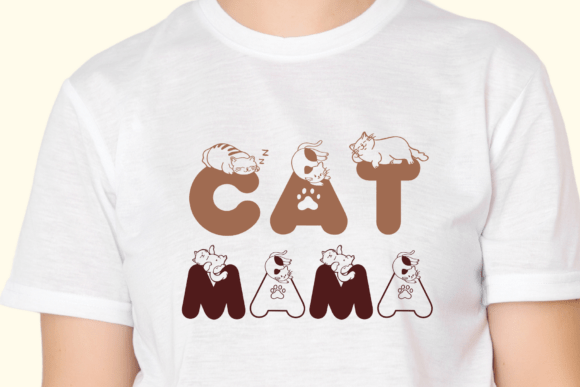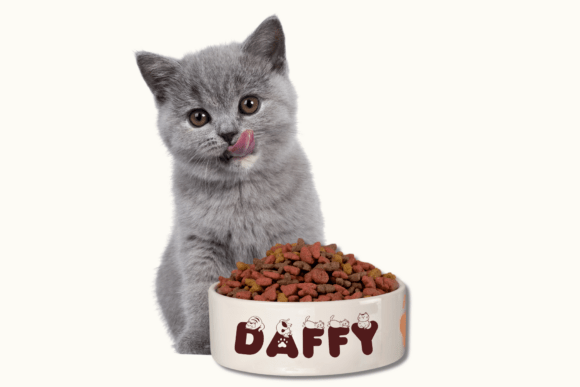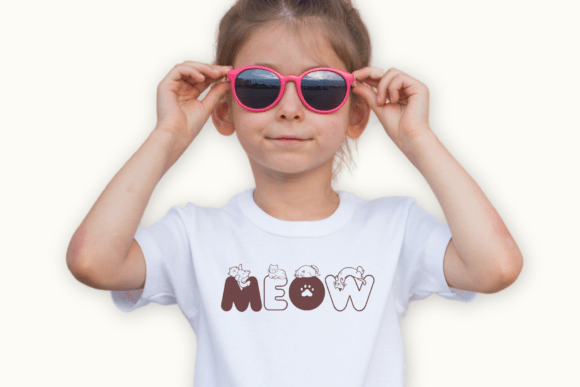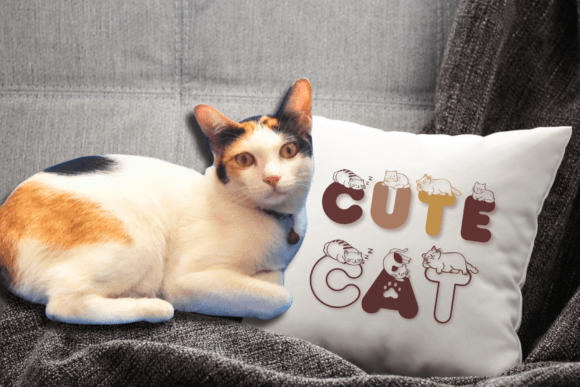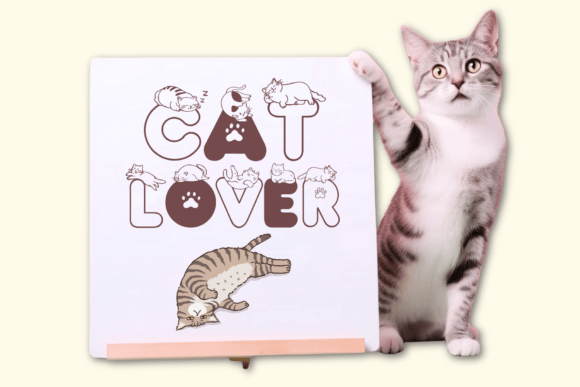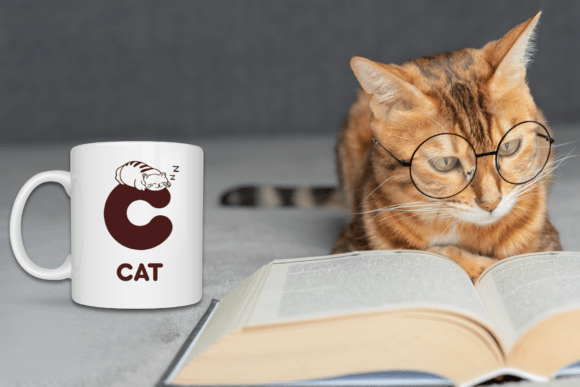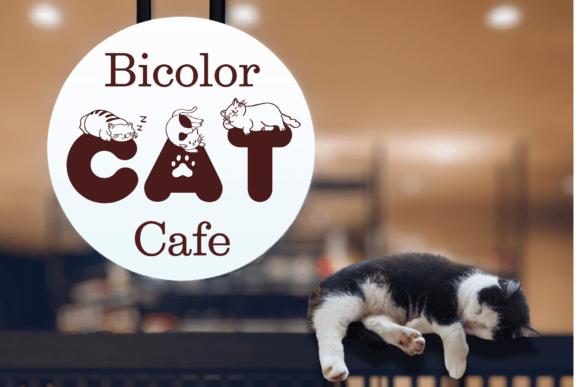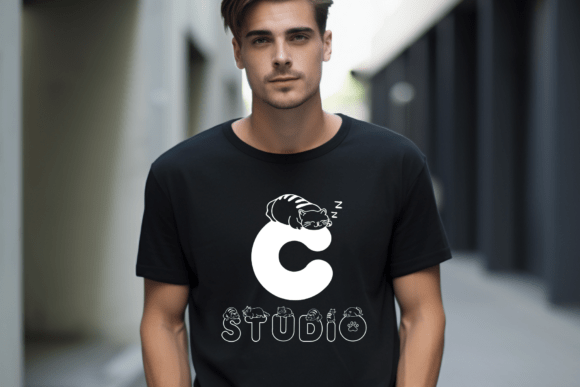
Cat Purr Font
Cat Purr Font is a fun, adorable, and highly decorative typeface that combines playful typography with charming cat illustrations. Each letter of the alphabet is creatively designed with sleeping cats, stretching cats, sitting cats, and playful kittens integrated into the letterforms. This makes the font not just a typeface but also a delightful design element that brings warmth and joy to any creative project.
This font is perfect for cat lovers, pet shop branding, children’s designs, playful packaging, greeting cards, posters, stickers, and many more craft projects. create an extra sense of personality and charm that will instantly make your design stand out.